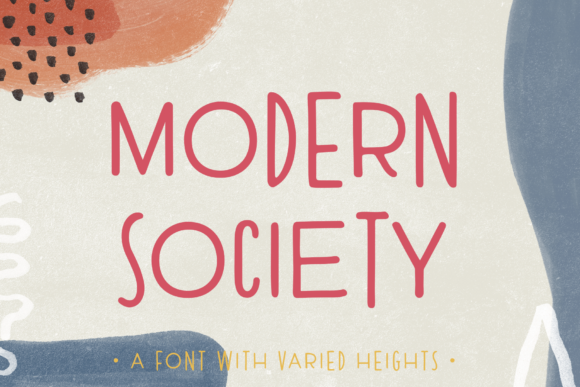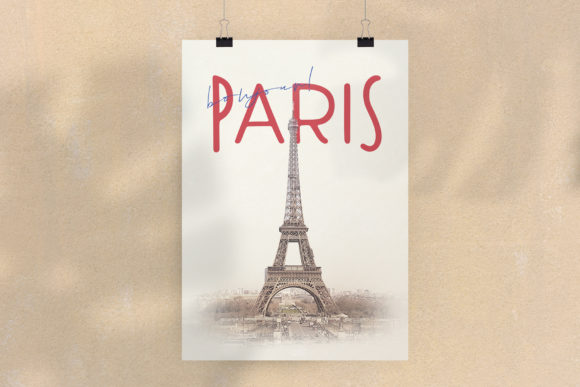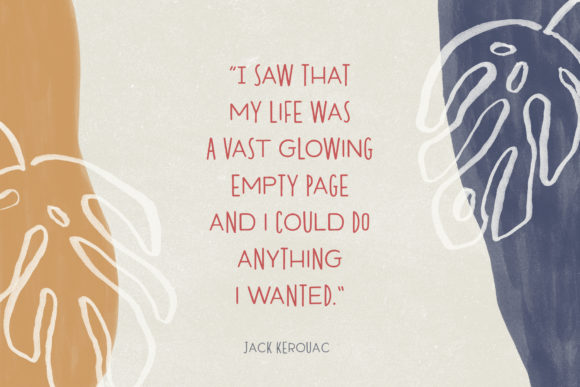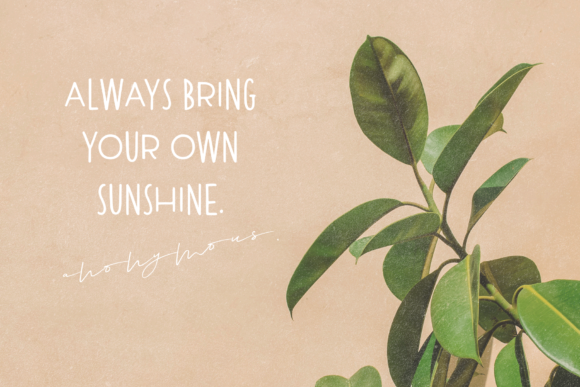
Modern Society Font: A Unique Handwritten Font for Creative Design
About the Modern Society Font
Elevate your designs with Modern Society Font, a font that combines sophistication with readability. Modern Society is a unique handwritten font with caps and geometrical letters. It will give your designs a special look!
Modern Society’s blend of hand-drawn and geometric forms makes it ideal for headlines, short text blocks in branding materials, and impactful signage. Its unique character shines in logos, posters, and packaging where a touch of personality is desired. However, the font’s less-than-optimal readability makes it unsuitable for body text or UI elements requiring extended reading.
This font exudes a bold yet approachable personality, sitting comfortably within a modern aesthetic. It works well for brands targeting a younger demographic or those with a creative, slightly rebellious image.
Pairing Modern Society with a clean sans-serif like Helvetica for body text or a more geometric sans-serif for a consistent modern look provides excellent contrast and readability. For a touch of elegance, consider a classic serif like Garamond or a delicate script font for added visual interest.
Modern Society Font Usage Examples
Modern Society Font Example